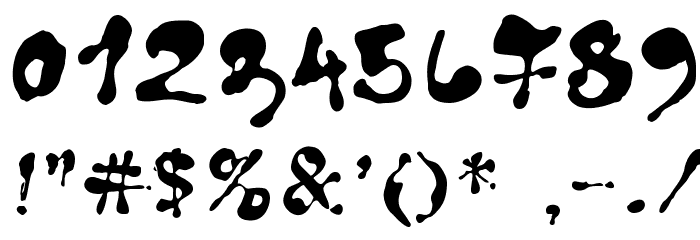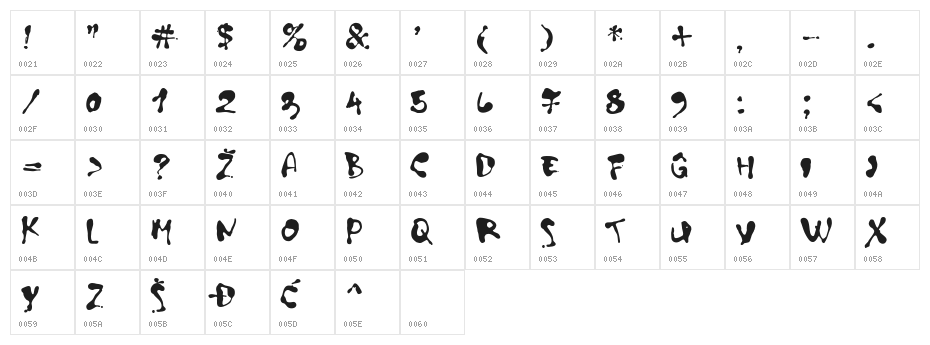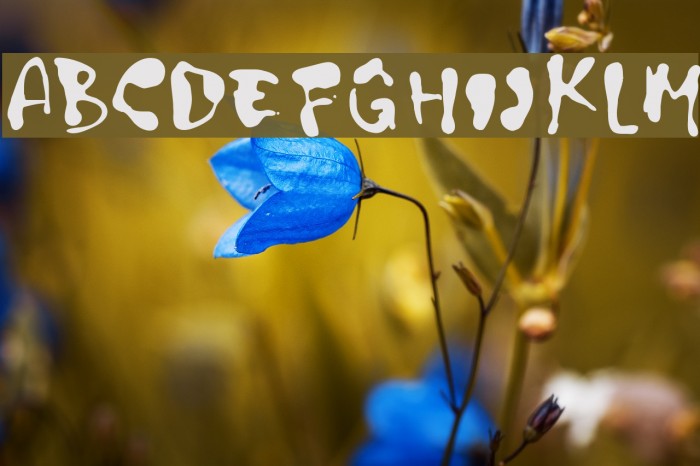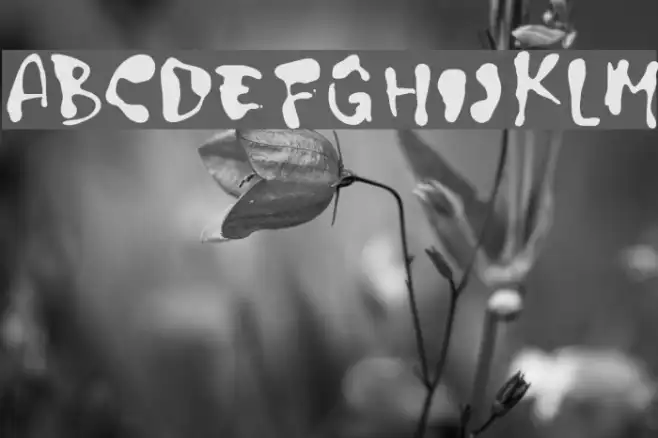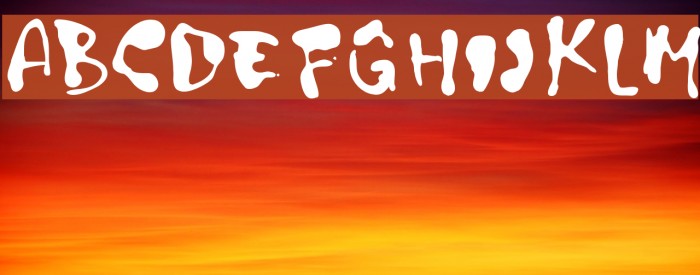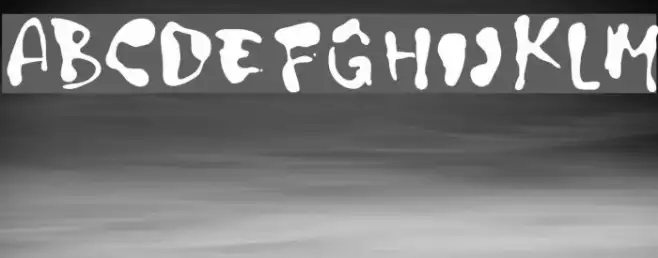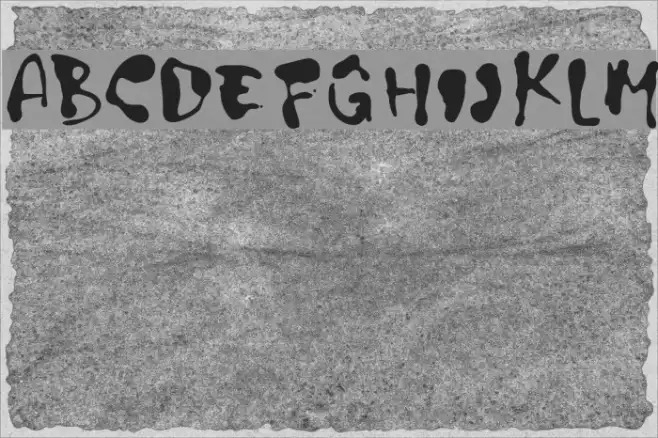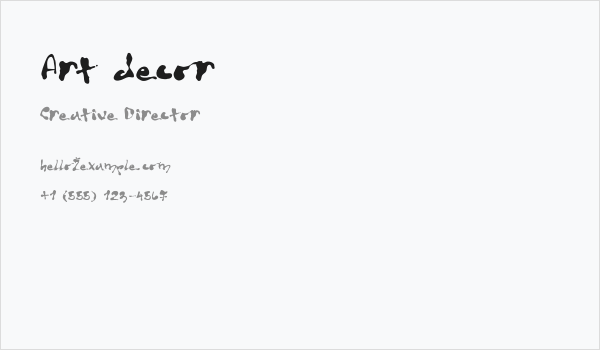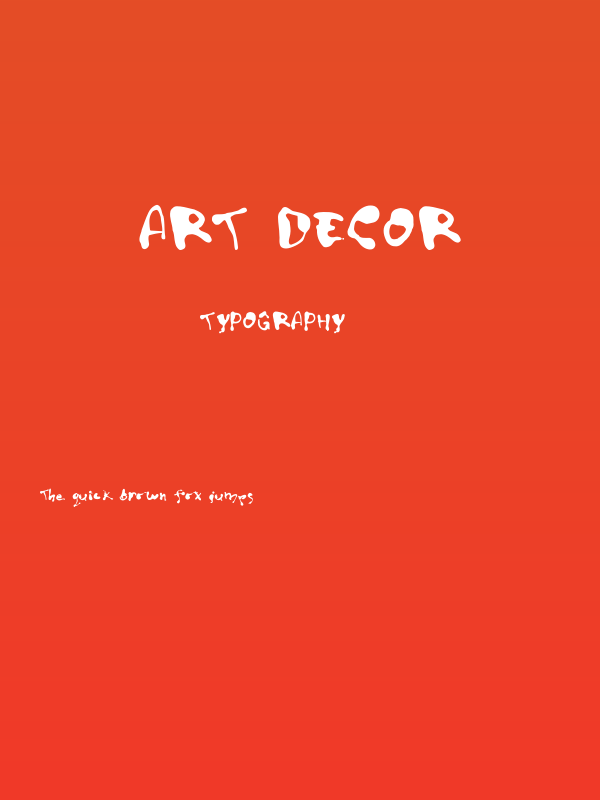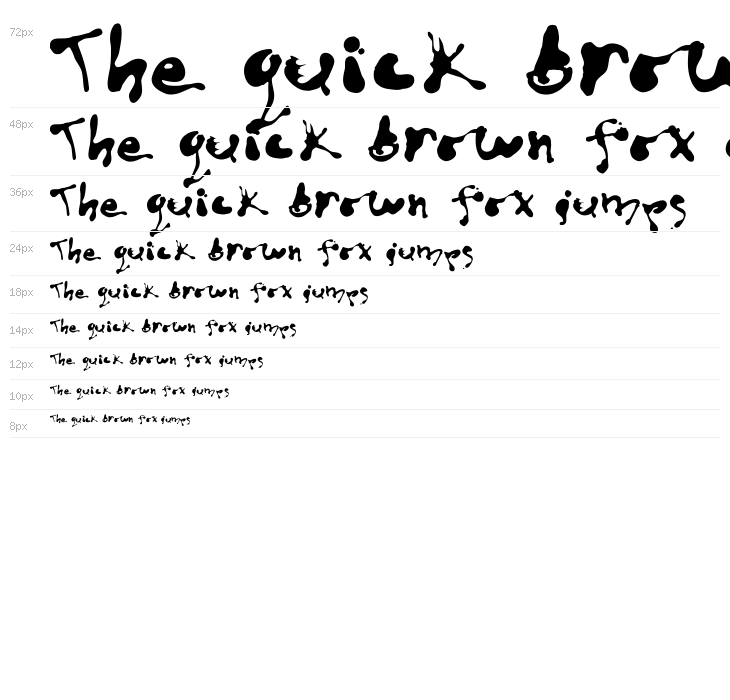
Art decor Font
Art decor Description
This font exhibits a unique and artistic style, characterized by its fluid and organic shapes. The letters appear as if they have been painted with a brush, featuring irregular edges and varying stroke thicknesses that give it a dynamic and lively appearance. The uppercase and lowercase letters maintain a consistent style, with a playful and whimsical touch. The numbers and special characters follow the same artistic theme, making the font suitable for creative and expressive projects. Its distinctive look is reminiscent of a hand-drawn or calligraphic style, making it stand out in any design.
| Overall Style | Artistic, Whimsical |
| Use Case | Headlines, Logos, Artistic Designs |
| Proposed Projects | Ideal for creative projects such as posters, album covers, artistic branding, and invitations. |